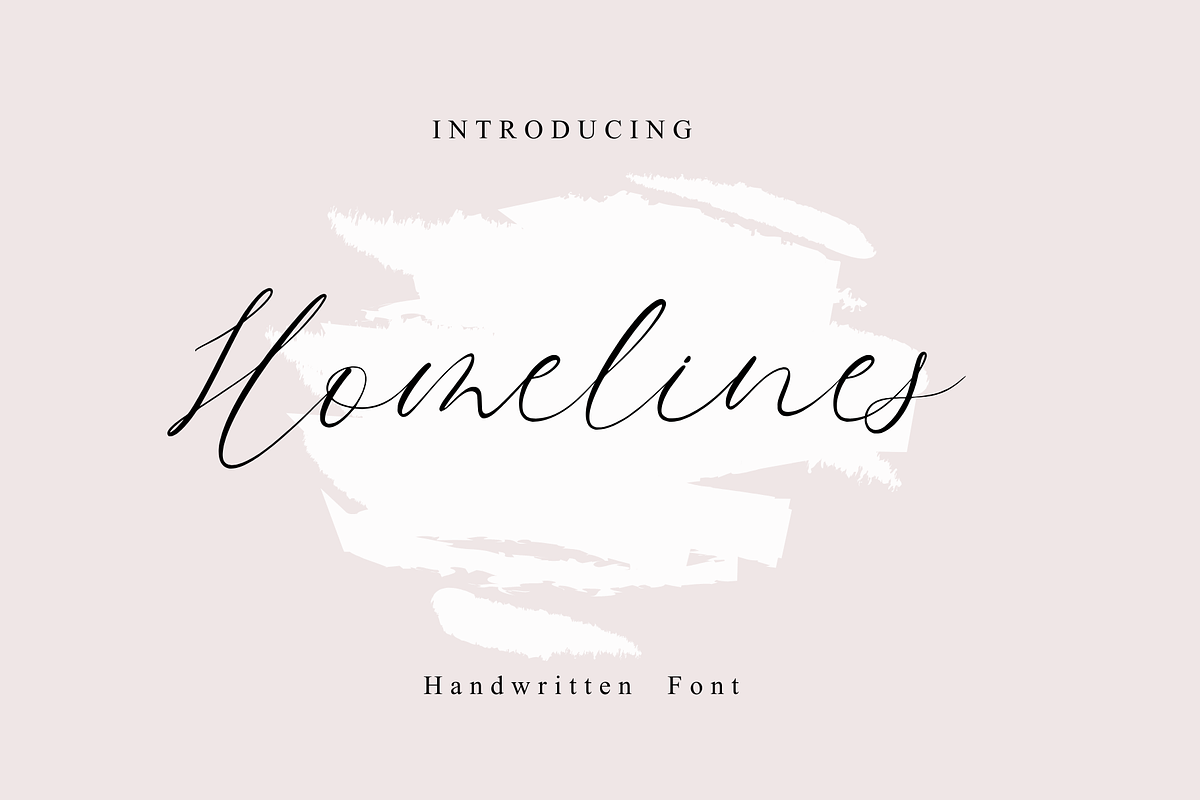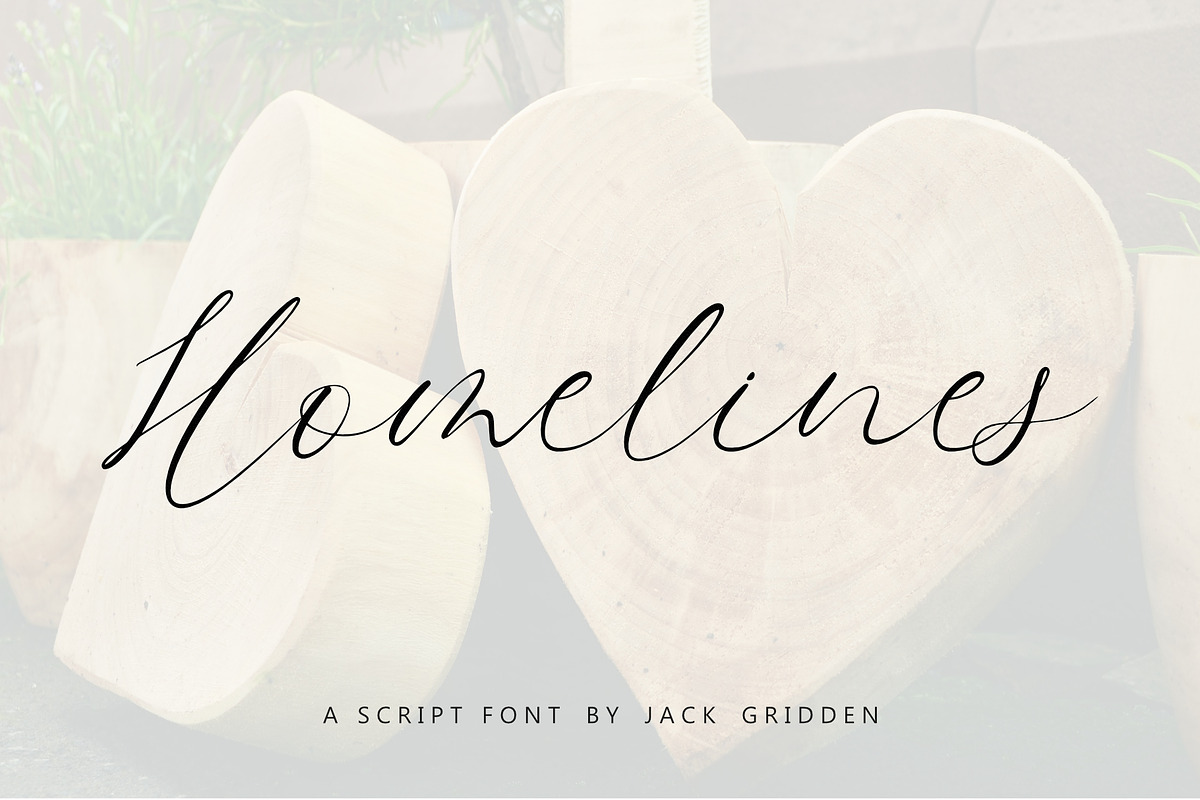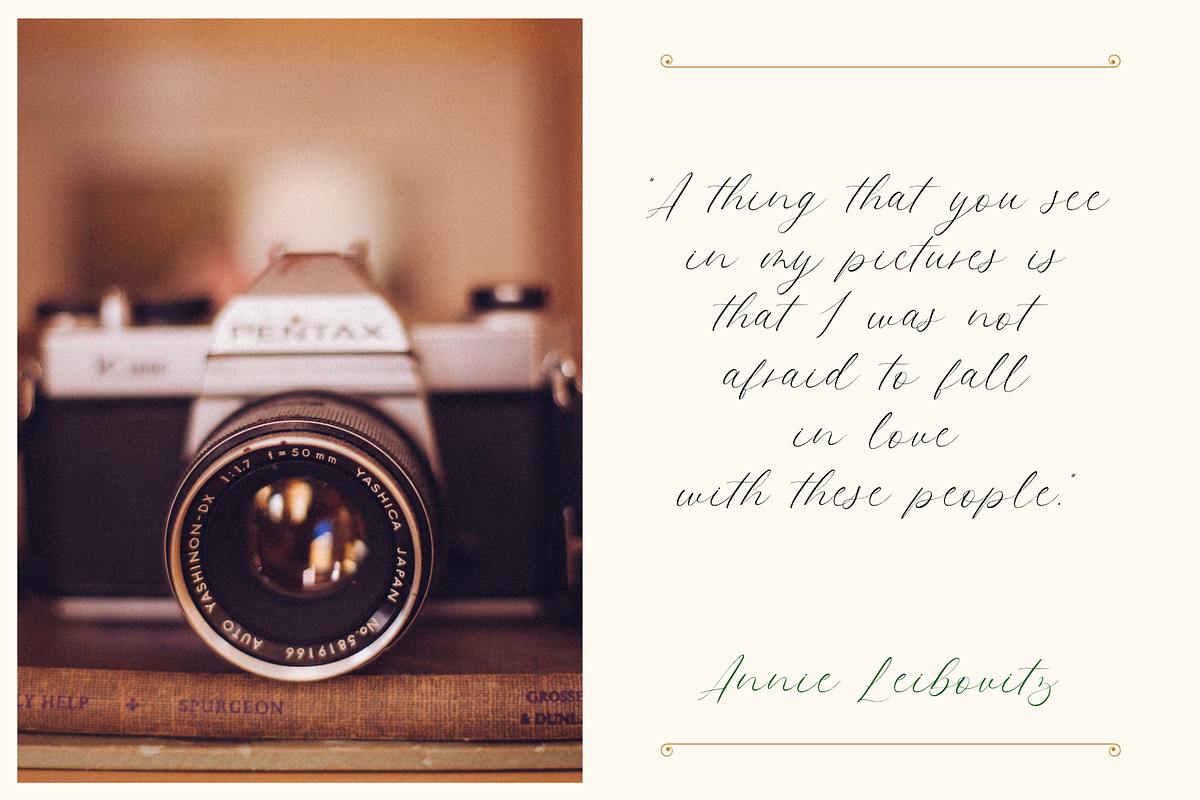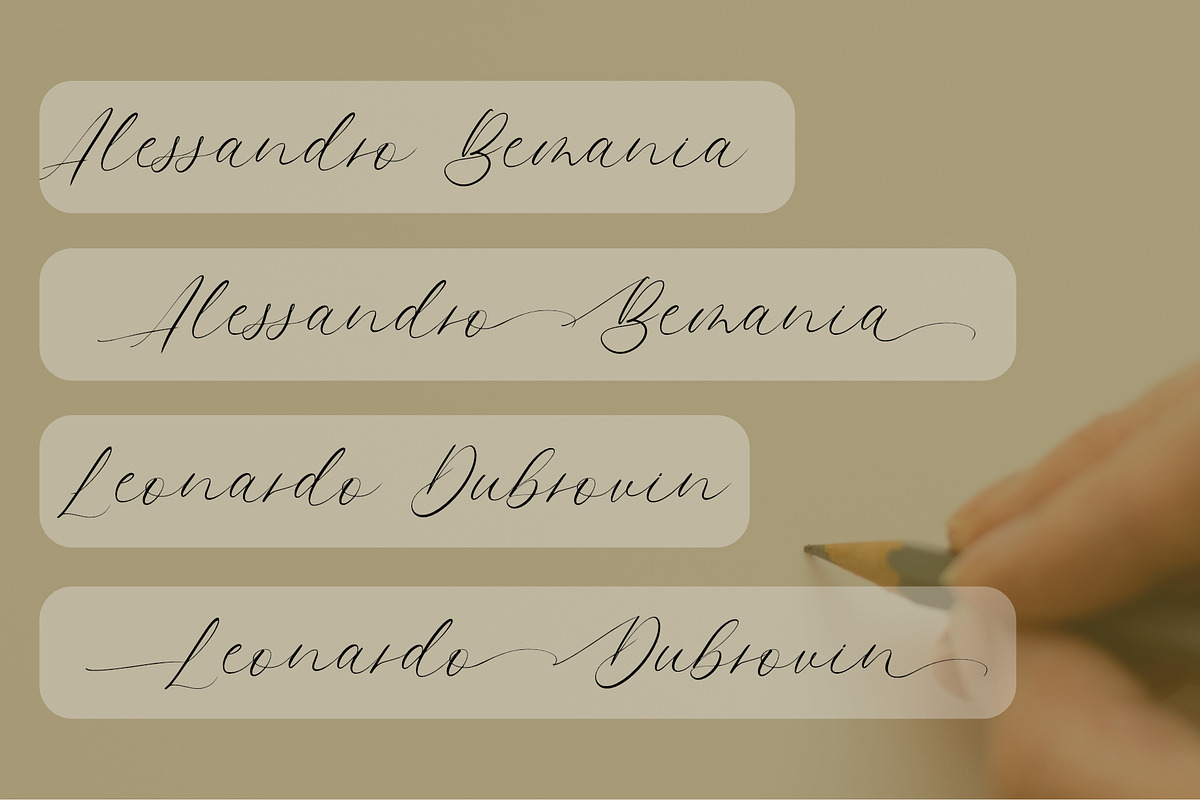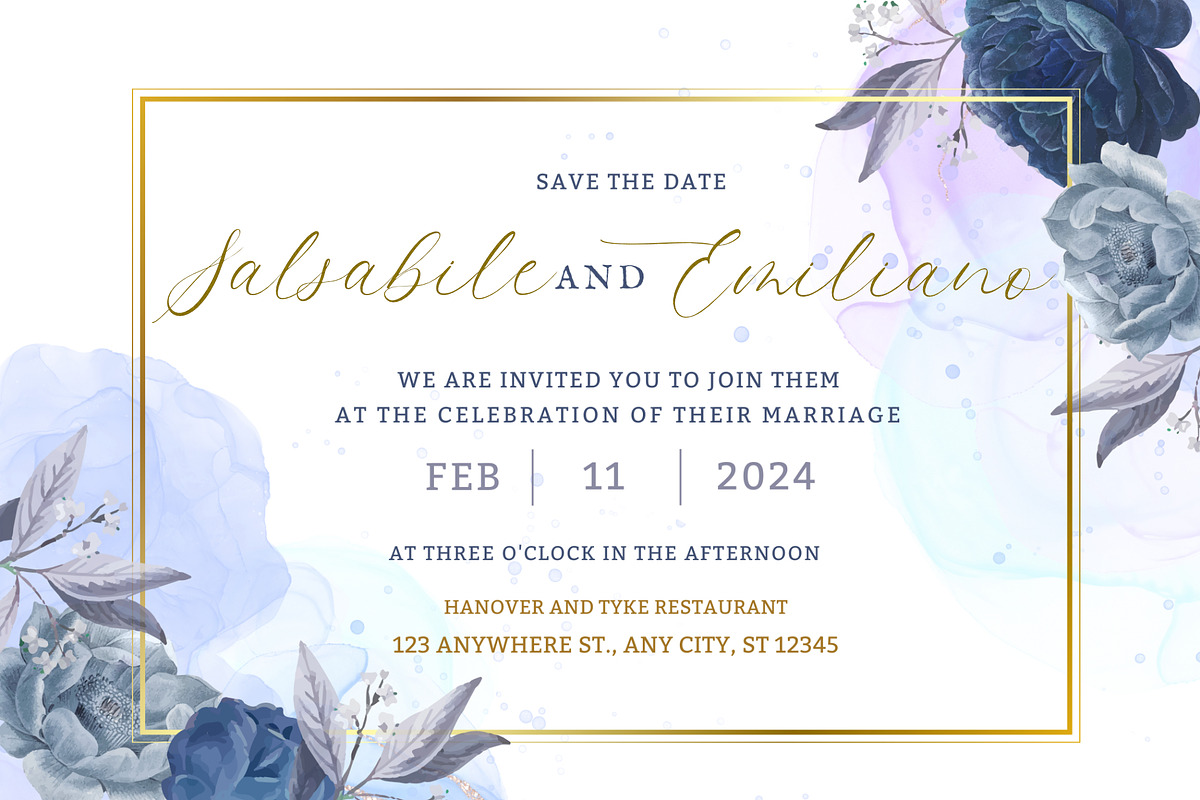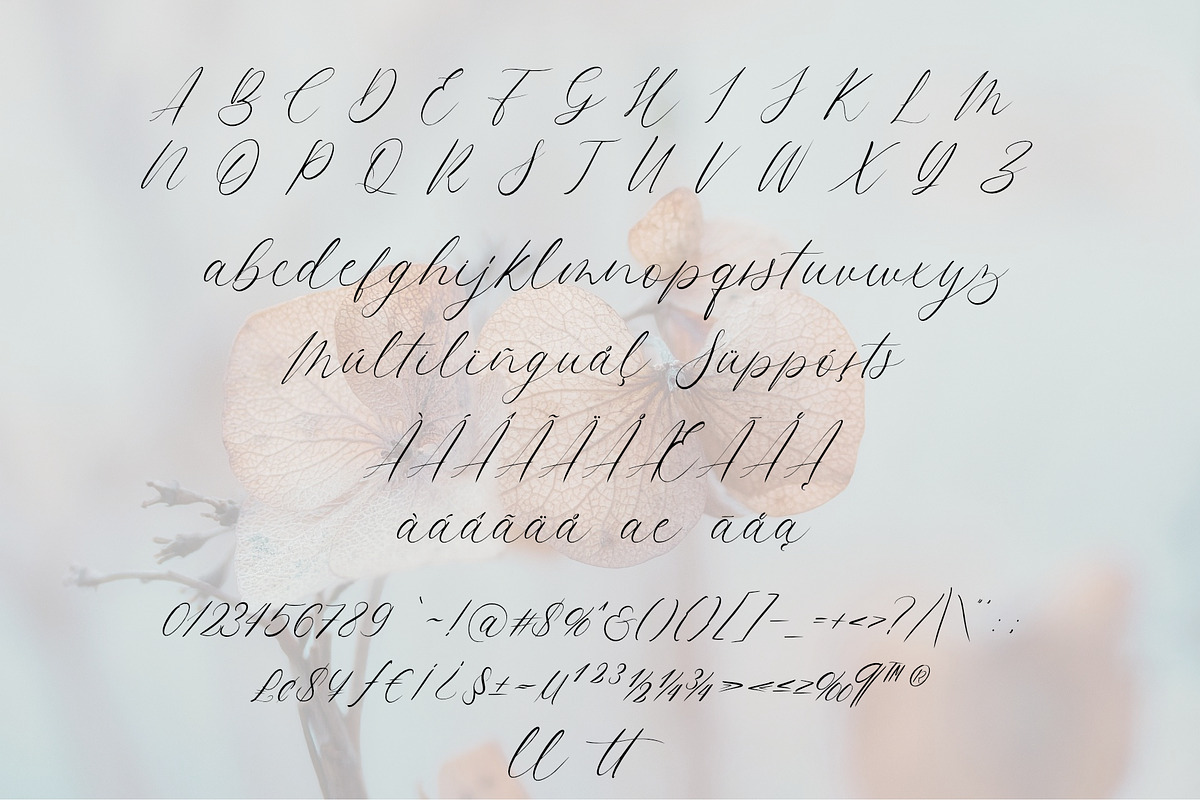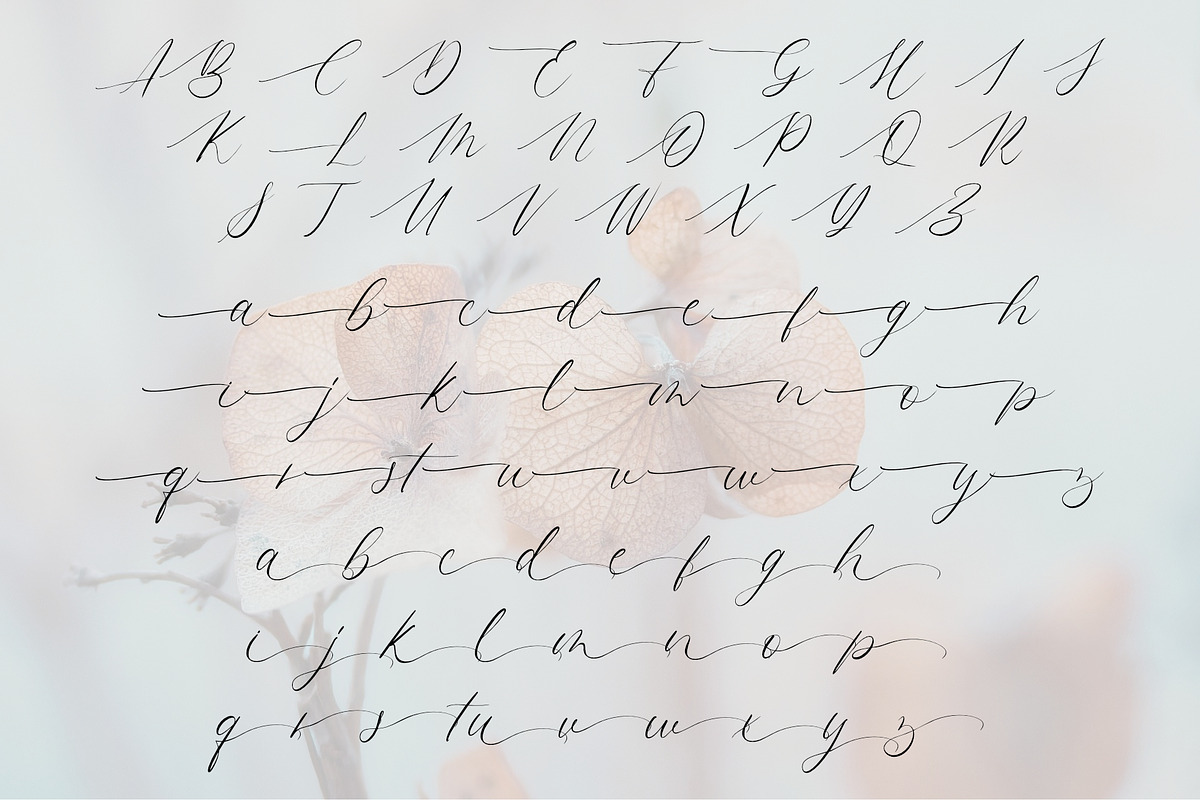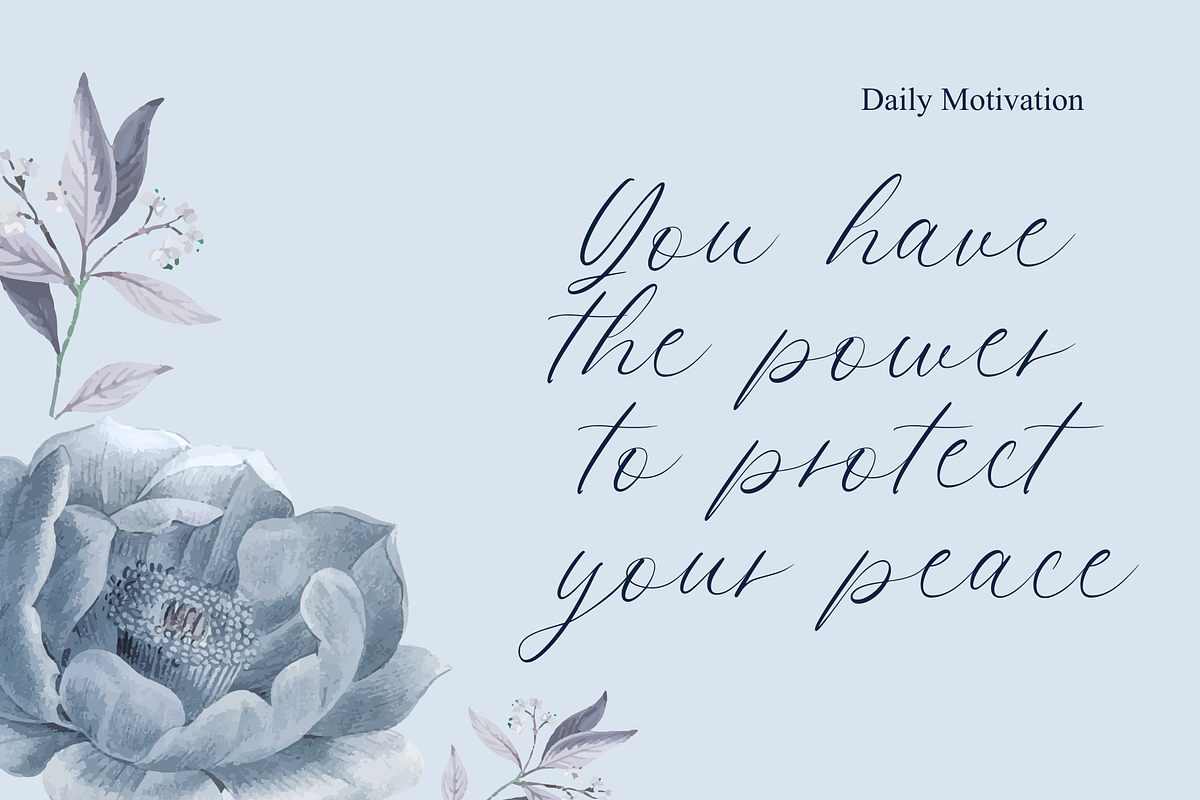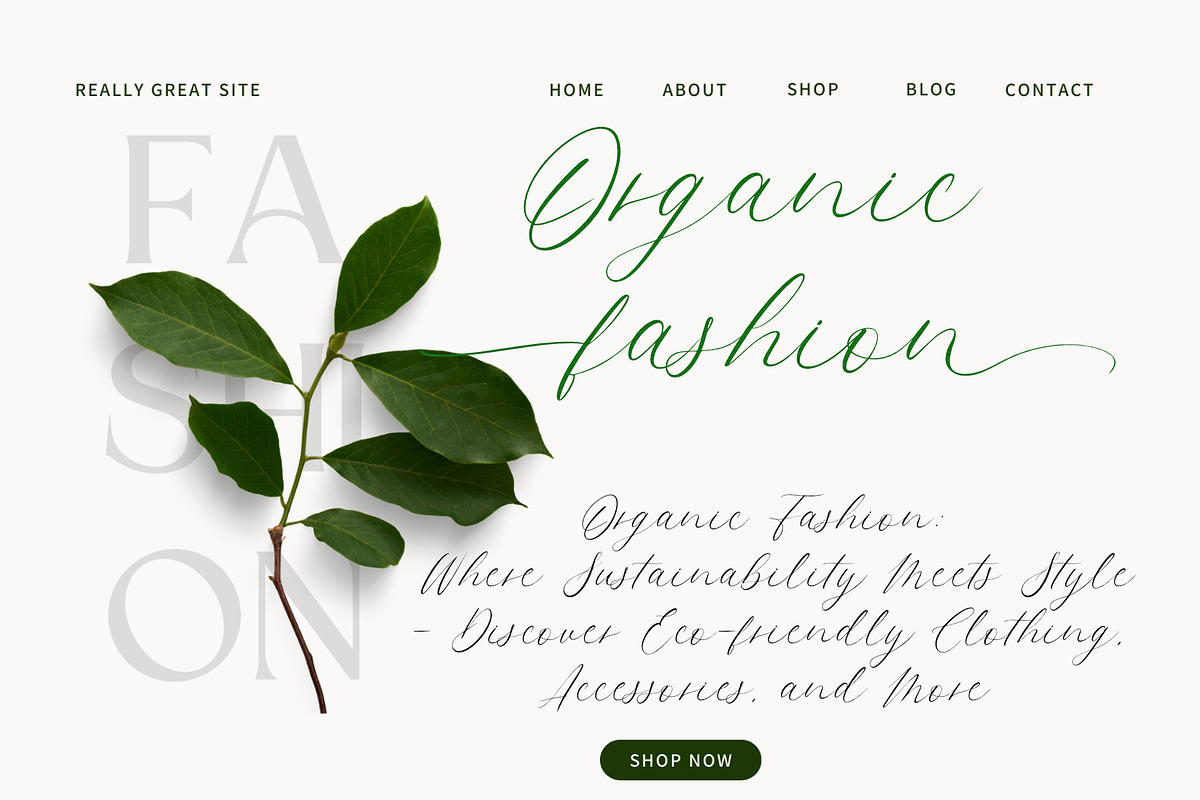
Homelines Font
Homelines is a modern, stylish handwritten script font that embodies elegance and charm. With its fluid strokes and contemporary appeal, it adds sophistication to branding, invitations, and editorial designs. Homelines effortlessly captures the essence of handwritten elegance, making it a versatile choice for various creative projects.